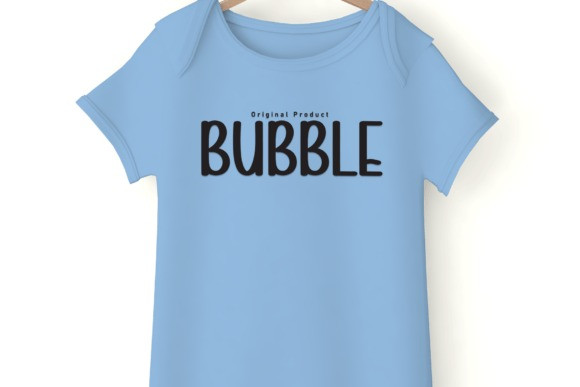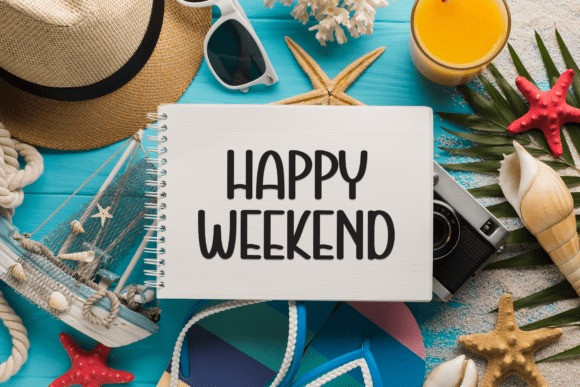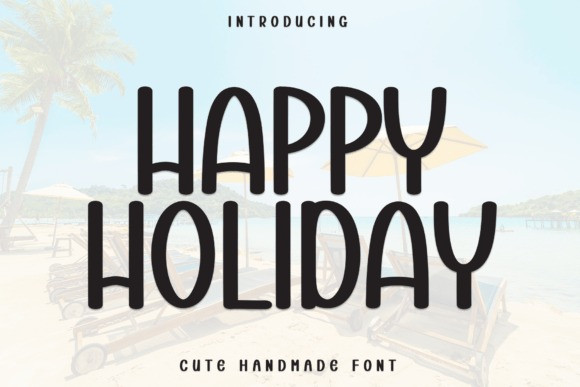
Happy Holiday Font
Happy Holiday Font Experience the charm of our meticulously handcrafted display font. Imbued with warmth and friendliness, each stroke of this delightful design masterpiece shines with heartfelt artistry. Ideal for infusing a captivating charm into wedding invitations, enchanting note cards, or any design endeavor in need of an exhilarating, playful spin. Elevate your designs with this font, designed to add a sprinkle of irresistible whimsy.